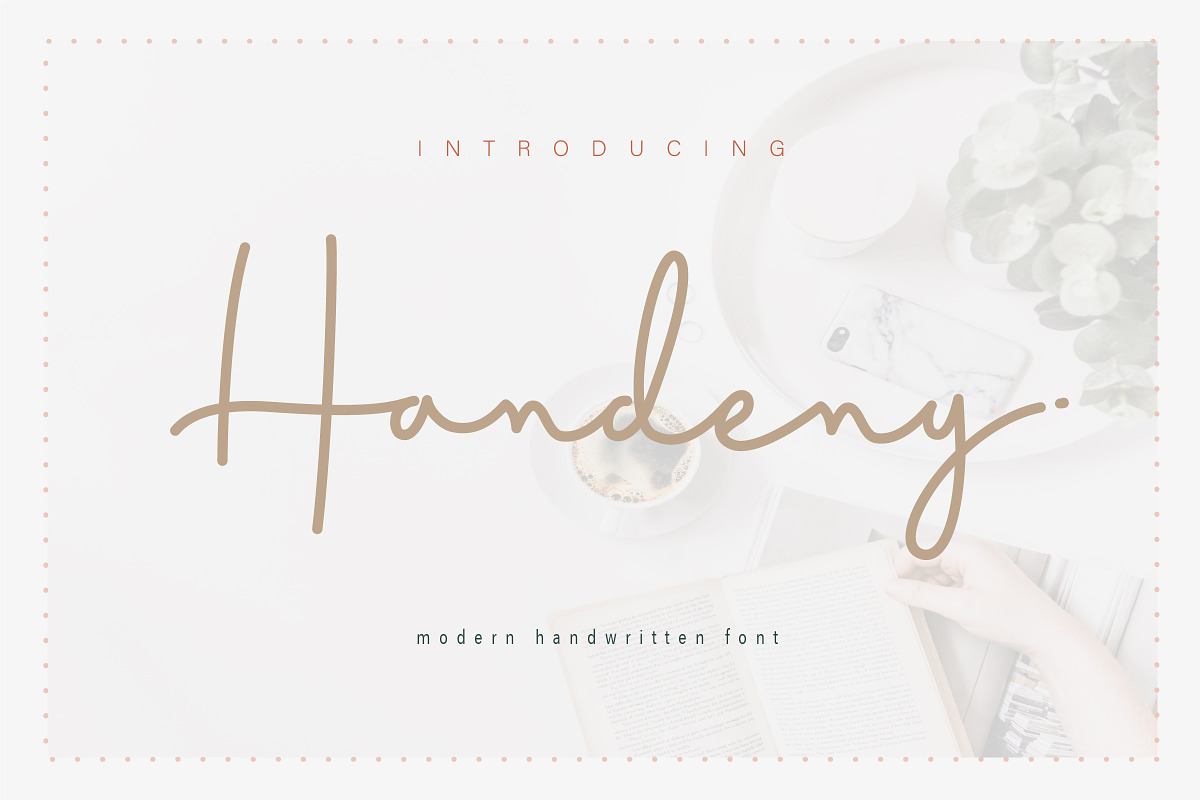
Handeny Font Free Download is a casual and stylish handwritten typeface that brings a natural, personal feel to your design projects. Perfect for logos, social media posts, greeting cards, packaging, and lifestyle branding, this font is designed to feel warm, friendly, and effortlessly creative.
With smooth strokes and authentic handwriting flow, Handeny Font Free Download helps add a human touch to your typography. Whether you're crafting a personal message or designing a cozy brand identity, this font gives your work a relaxed yet polished vibe. Try it in your next mockup to experience its versatility—then upgrade to a commercial license when you're ready to publish your project.